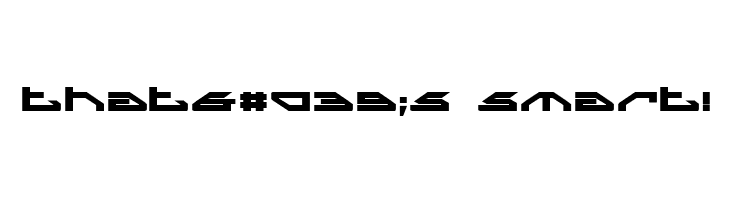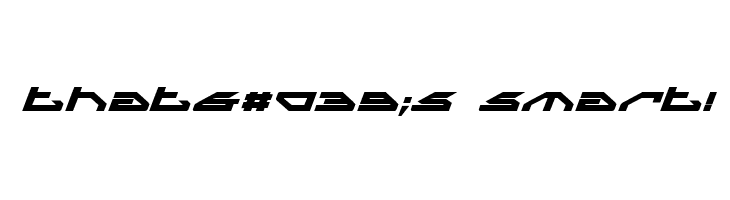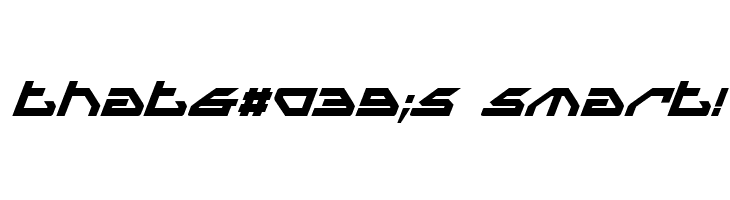
Code Next ExtraBold Italic Font
- Font: Code Next ExtraBold Italic
A bold, expanded, futuristic font with geometric design.
A bold, expanded, and italic font with a futuristic and dynamic style.
A futuristic, geometric font with sharp angles and a digital aesthetic.
A futuristic, angular italic font with bold strokes and a dynamic slant.
A futuristic, angular font with bold geometric shapes.
A futuristic, angular, and italicized font with a sleek, modern design.
A futuristic, angular font with an italic slant and expanded width, perfect for modern designs.
A bold, italicized font with a futuristic, angular design.